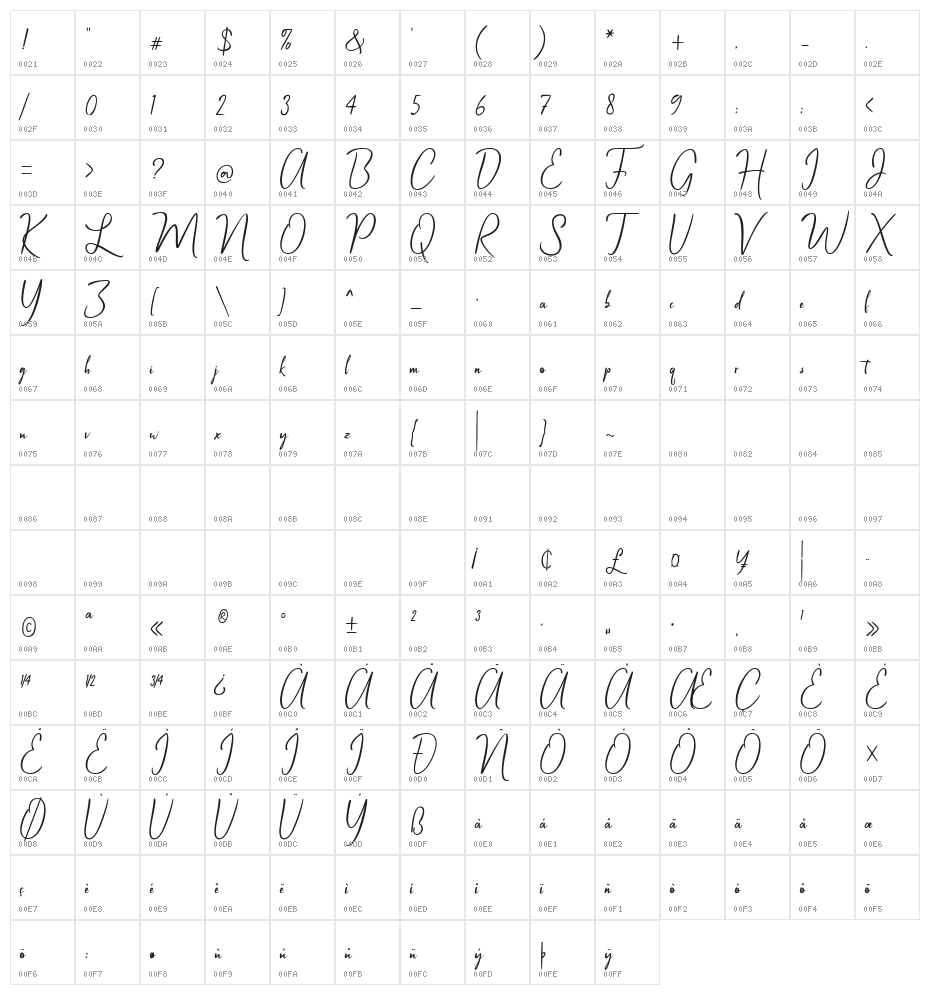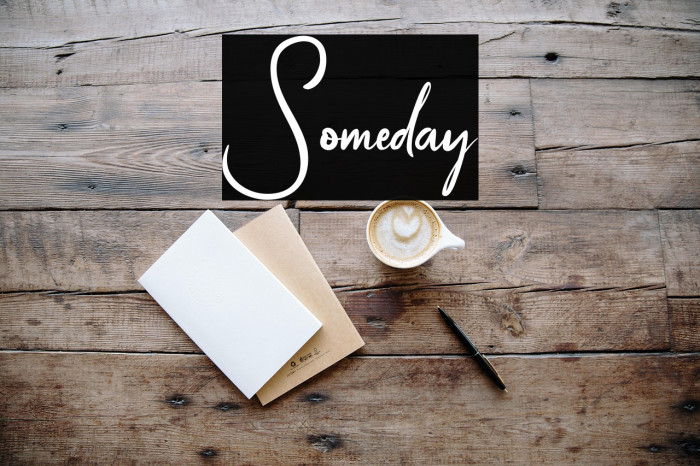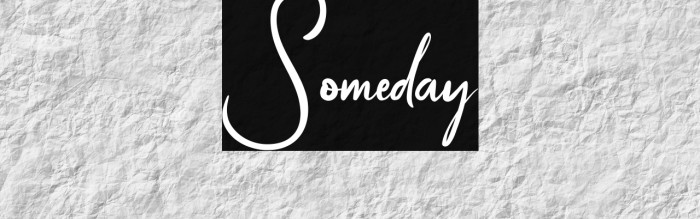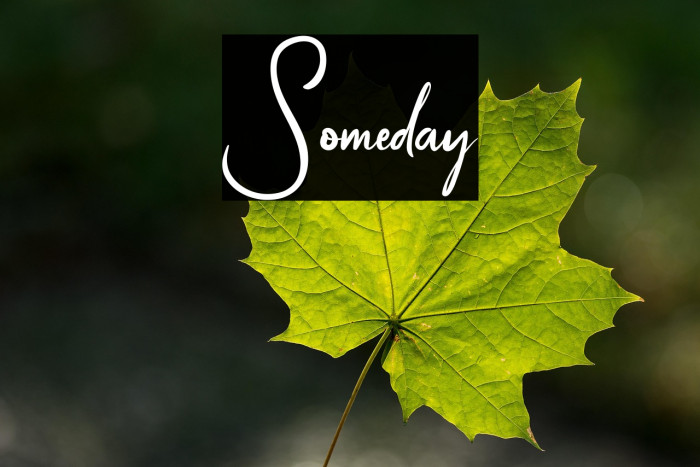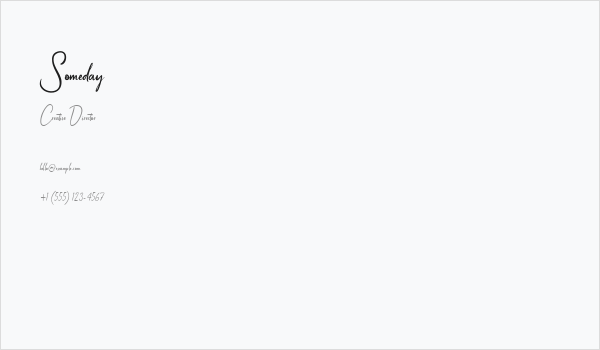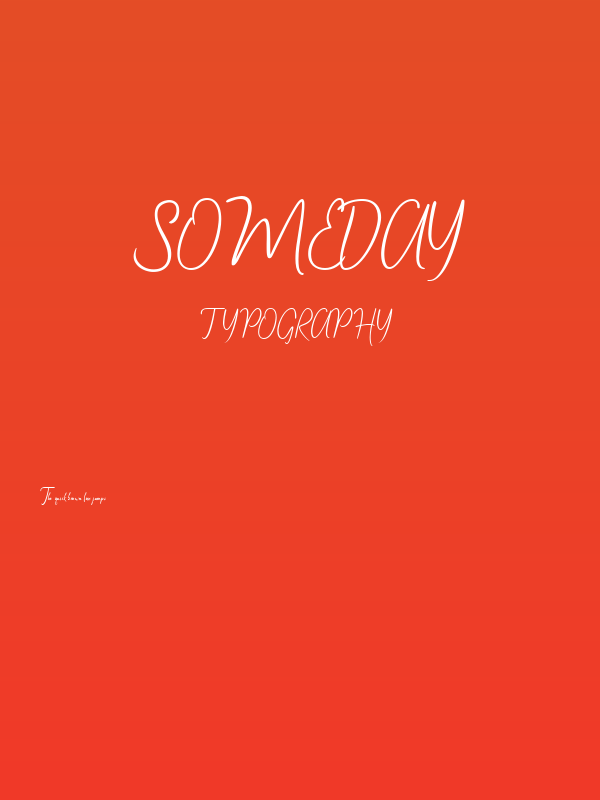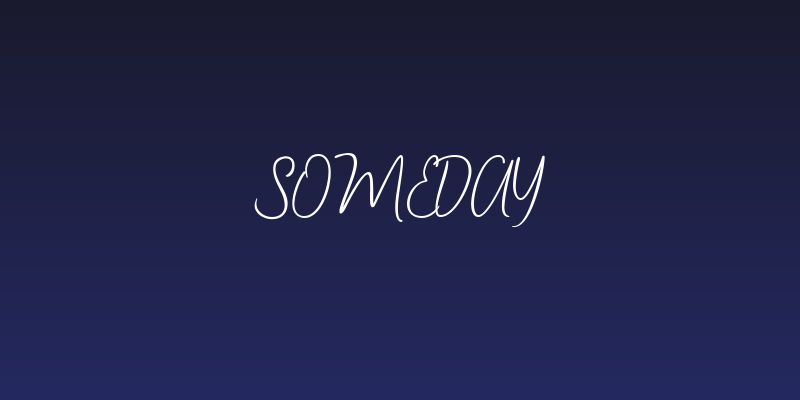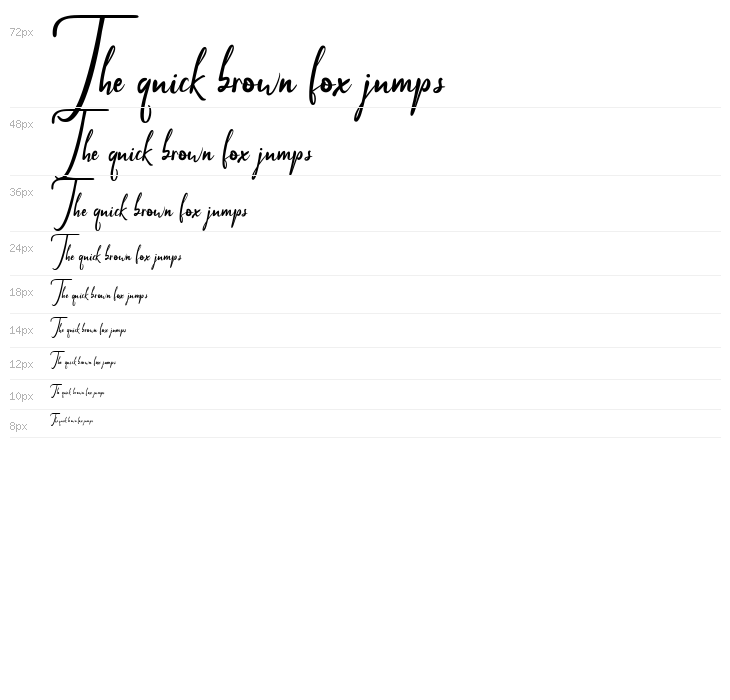
Someday Font
Someday Description
This font features an elegant and flowing script style that mimics the fluidity of natural handwriting. The uppercase letters are tall and slender, with graceful curves and loops, while the lowercase letters maintain a consistent, smooth flow. The numerals are distinct and easy to read, complementing the overall aesthetic. Special characters are integrated seamlessly, adding versatility to the font. The design is both sophisticated and approachable, making it suitable for a variety of creative applications.
| Proposed Projects | Ideal for wedding invitations, greeting cards, branding, and elegant packaging designs. |